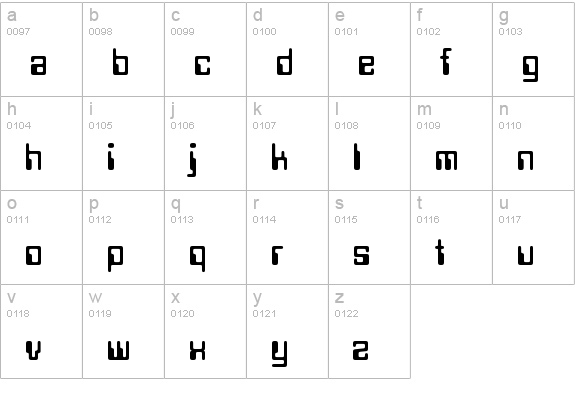
Data70EF Font Details
Data70EF is a sleek and modern font that exudes a futuristic vibe, making it perfect for projects that require a contemporary touch. With its clean lines and geometric shapes, this font is ideal for use in tech-related designs, branding, and digital art. The sharp edges and bold letterforms of Data70EF give it a strong and impactful presence on any visual medium. What sets Data70EF apart is that it is available for free download at FontsMarket.com. This means that you can easily access this stylish font for your creative projects without any cost. Whether you're a designer looking to add a cutting-edge flair to your work or a tech enthusiast wanting to enhance your digital creations, Data70EF is a versatile font that will elevate your designs to the next level. Download Data70EF today and start exploring the endless possibilities it offers.